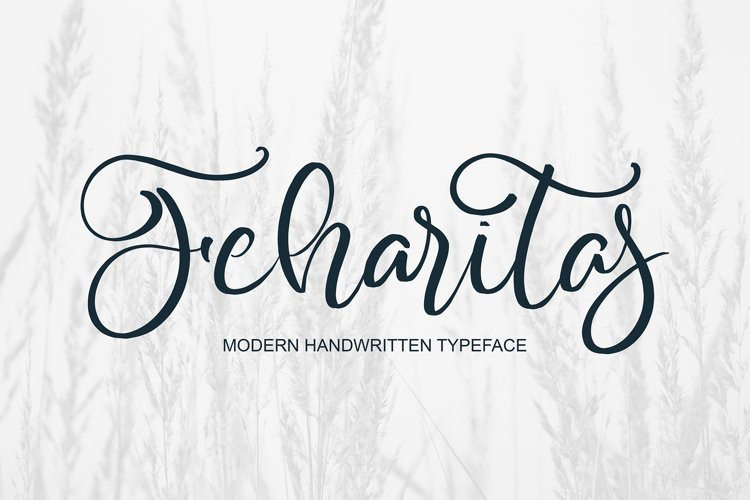
Feharitas Font
Feharitas font with new style, this font will perfect for many different project ex: quotes, logo, blog header, poster, banding, letter, invitation, stationery, etc…